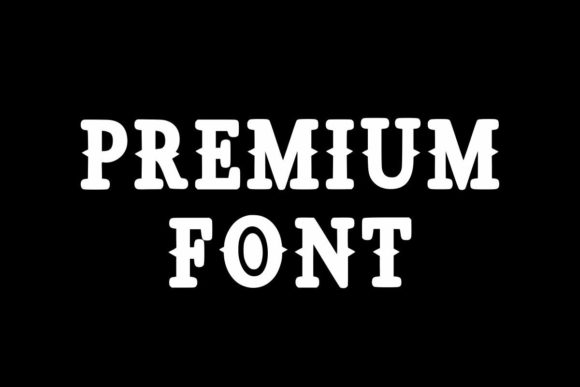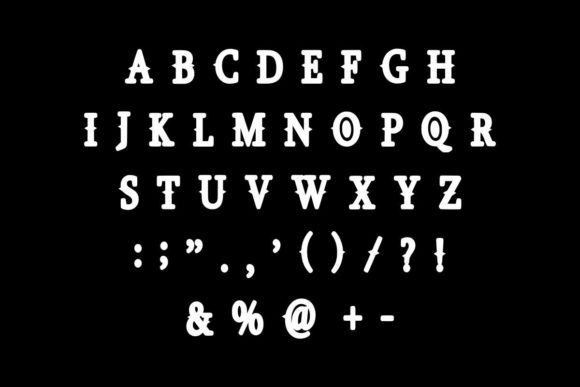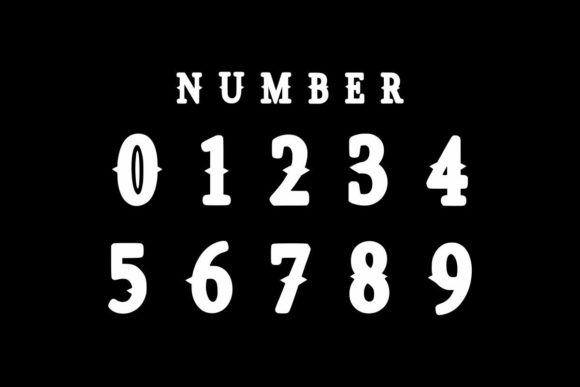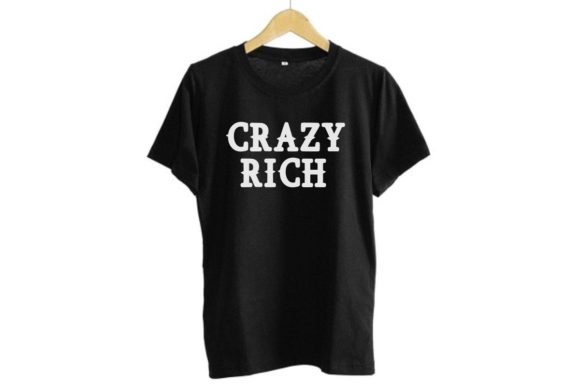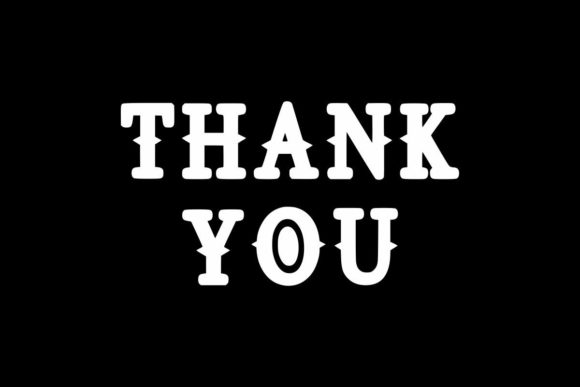
Crazy Rich Font: Elevate Your Designs with this Bold and Thick Lettered Display Font
Are you tired of using the same old fonts in your designs? Look no further than the Crazy Rich Font, a classic, bold, and thick lettered display font that is sure to take your creations to the next level. With its unique and eye-catching style, Crazy Rich is an incredible asset to any font library, and can be used on a wide range of topics and projects.
What is Crazy Rich Font?
Crazy Rich Font is a display font that is characterized by its bold and thick lettering. It’s perfect for creating eye-catching headlines, titles, and captions that demand attention. The font’s classic style ensures that it will never go out of fashion, making it a versatile and timeless addition to any design project.
Key Features of Crazy Rich Font
- Bold and Thick Lettering: The Crazy Rich Font features bold and thick lettering that is sure to make a statement.
- Classic Style: The font’s classic style ensures that it will never go out of fashion, making it a versatile and timeless addition to any design project.
- Wide Range of Uses: Crazy Rich Font can be used on a wide range of topics and projects, from advertising and marketing materials to packaging and branding.
- Easily Readable: Despite its bold style, Crazy Rich Font is easily readable, making it perfect for use in headlines, titles, and captions.
Benefits of Using Crazy Rich Font
- Adds Visual Impact: The bold and thick lettering of Crazy Rich Font adds visual impact to any design project, making it perfect for creating eye-catching headlines and titles.
- Enhances Branding: Crazy Rich Font can help to enhance your branding and make your designs stand out from the competition.
- Versatile: The font’s classic style and wide range of uses make it a versatile addition to any design project.
- Graphic Designers: Graphic designers can use Crazy Rich Font to create eye-catching headlines and titles for their designs.
- Advertising and Marketing Professionals: Advertising and marketing professionals can use Crazy Rich Font to create bold and attention-grabbing ads and marketing materials.
- Crafters and Makers: Crafters and makers can use Crazy Rich Font to add a personal touch to their handmade products and packaging.
- Branding and Identity Designers: Branding and identity designers can use Crazy Rich Font to create unique and memorable brand identities.
- Use it as a Headline Font: Crazy Rich Font is perfect for use as a headline font, where its bold and thick lettering can really make a statement.
- Experiment with Different Colors: Try out different colors and textures to really make Crazy Rich Font pop.
- Pair it with Other Fonts: Crazy Rich Font pairs well with a wide range of other fonts, so don’t be afraid to experiment and find the perfect combination for your design.
In conclusion, Crazy Rich Font is a classic, bold, and thick lettered display font that is sure to elevate any design project. With its wide range of uses, versatility, and ease of use, it’s an incredible asset to any font library. Whether you’re a graphic designer, advertising and marketing professional, crafter, or maker, Crazy Rich Font is a must-have font that is sure to take your designs to the next level.